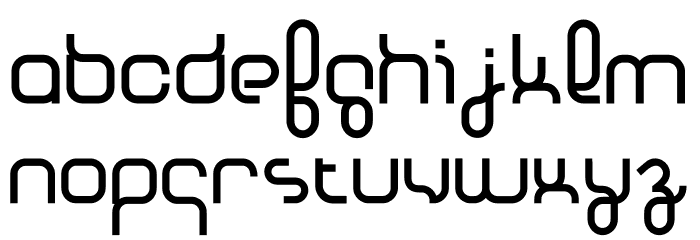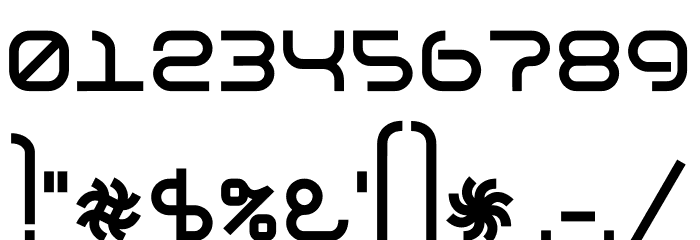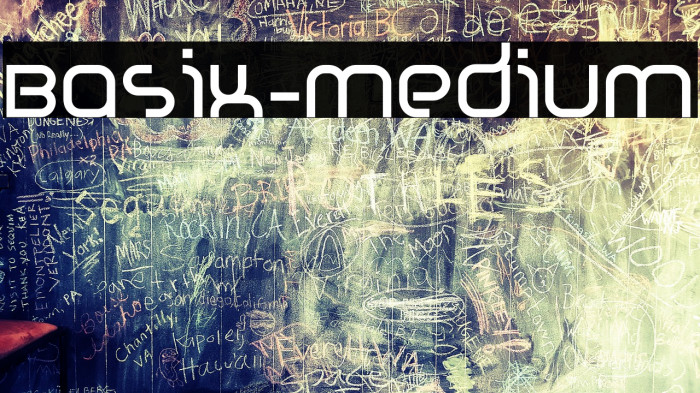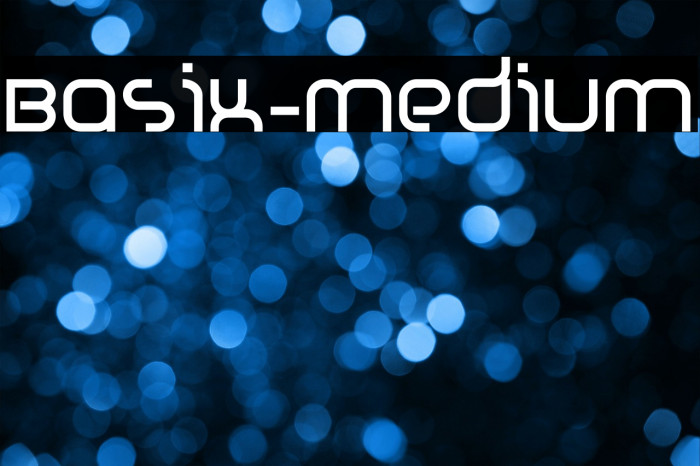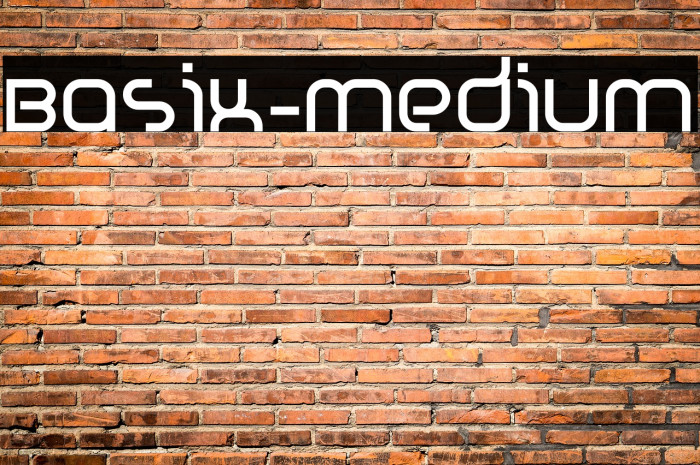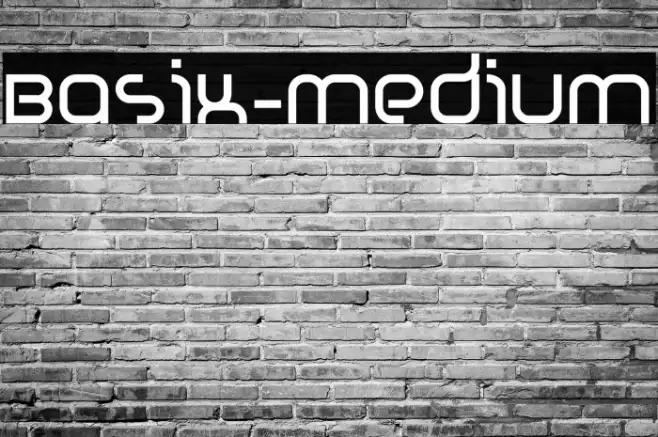
Basix-Medium Font
This font features a modern, geometric design with a unique blend of rounded and angular elements. The characters are constructed with consistent stroke widths, giving it a clean and uniform appearance. The uppercase letters are bold and structured, while the lowercase letters maintain a playful yet sophisticated look with distinctive loops and curves. The numerals are clear and easy to read, complementing the overall style. Special characters are creatively designed, adding a touch of flair without compromising readability. This font is versatile, suitable for various design projects that require a contemporary and stylish aesthetic.
A modern, geometric font with rounded and angular elements, offering a clean and stylish look.
- Proposed Projects: Ideal for branding, advertising, digital media, and editorial design projects.
- Use Case: Headlines, Logos, Digital media